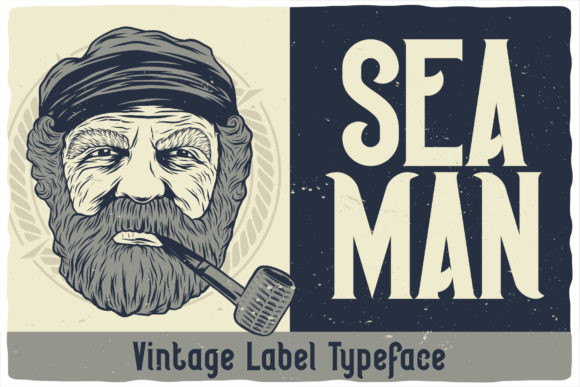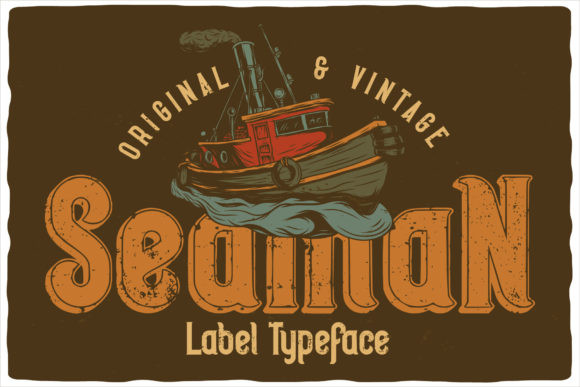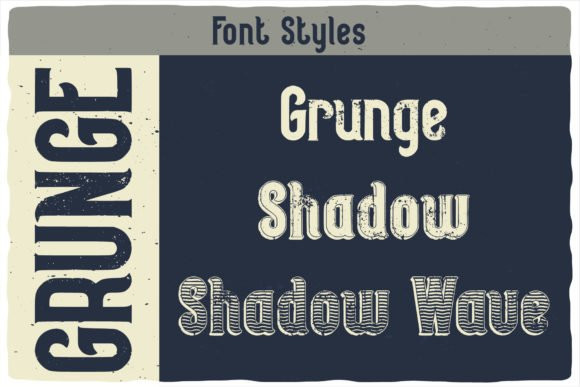
Seaman Font
Seaman is a cool, bold and vintage styled display font. No matter the topic, this font will be an incredibly asset to your fonts’ library, as it has the potential to elevate any creation.